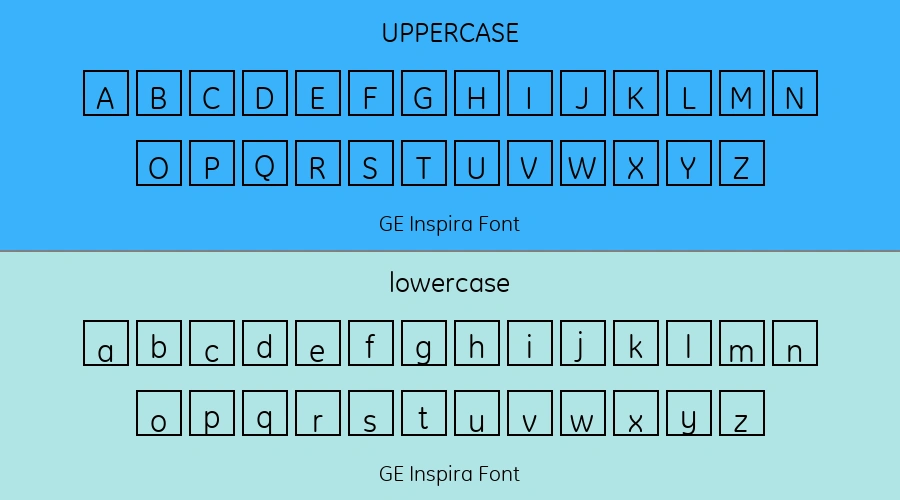
About GE Inspira Font
GE Inspira Font stands out for its distinctive combination of expressive energy and visual comfort. Ideal for wine labels, it provides the reliability and technical merit that professional projects demand. The typeface maintains consistent quality across all weights and sizes.
Key features include refined engineered curves and practical discretionary ligatures, enhancing typographic expression. In heritage publications applications, GE Inspira Font demonstrates exceptional reproduction fidelity. The letterfit and professional recognition contribute to its distinctive character and professional appeal.
GE Inspira Font |